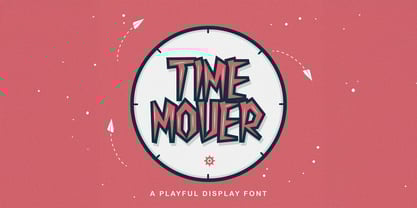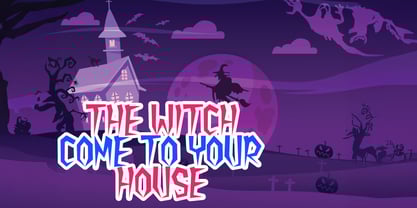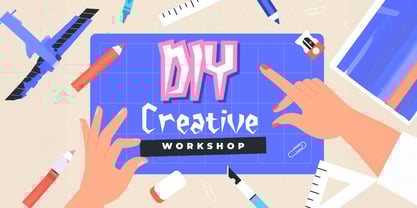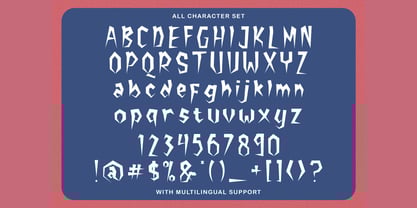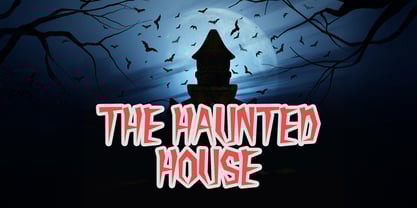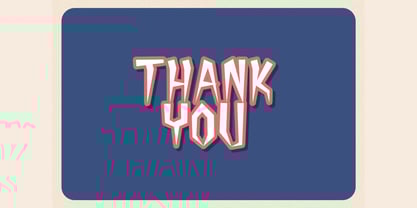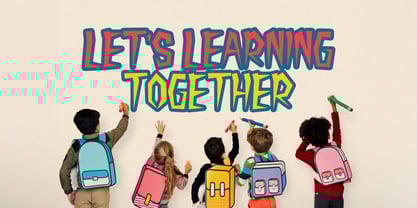
The Time Mover Font Family was designed by Virgiawan Listanto and published by Stringlabs Creative Studio. Time Mover contains 1 styles.
Time Mover is a vibrant and quirky display font bursting with energy and creativity. With its bold shapes, dynamic flow, and playful character, this font brings a sense of movement and fun to any design perfect for grabbing attention in a cheerful way!
Designers: Virgiawan Listanto
Publisher: Stringlabs Creative Studio
Foundry: Stringlabs Creative Studio
Design Owner: Stringlabs Creative Studio